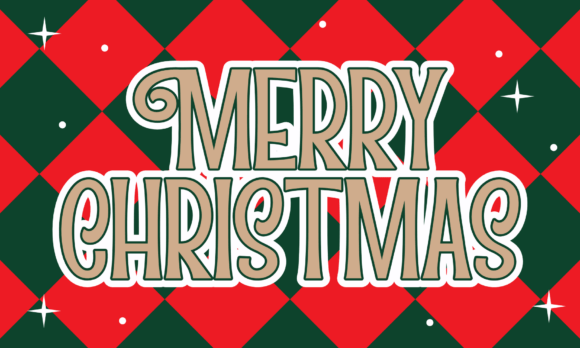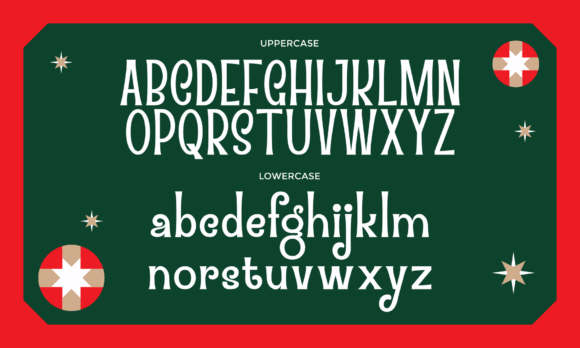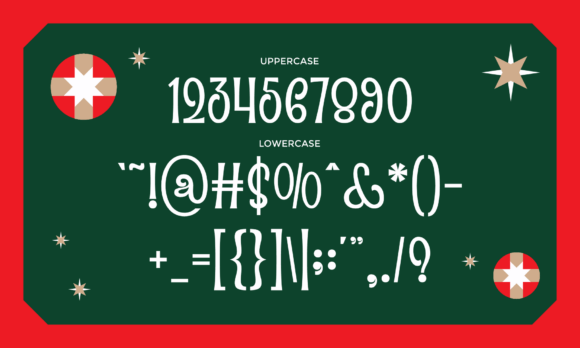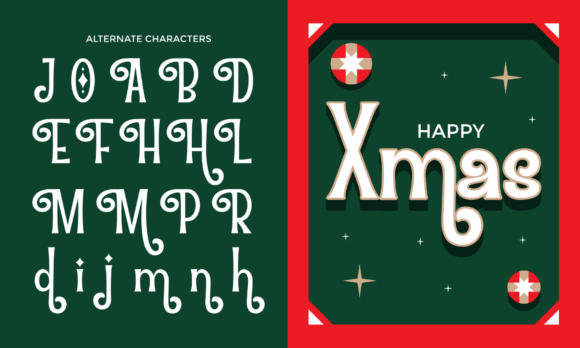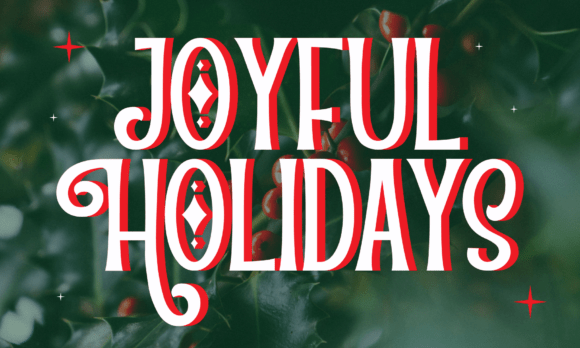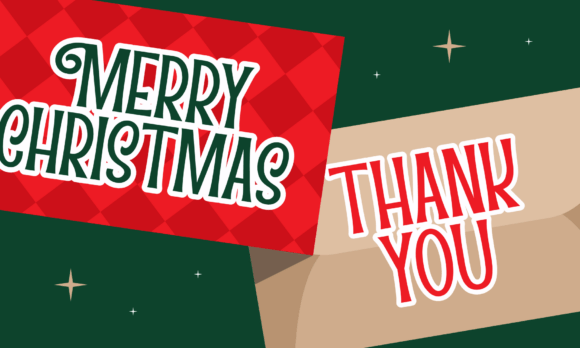
Introduction to Criemas Font
Criemas is a festive Christmas display typeface featuring tall, playful letterforms with a warm retro charm.
Its stretched curves, soft edges, and unique quirky proportions create a joyful holiday personality perfect for seasonal branding The typeface’s robust, display-oriented design ensures maximum visibility and charm on posters, banners, and packaging.